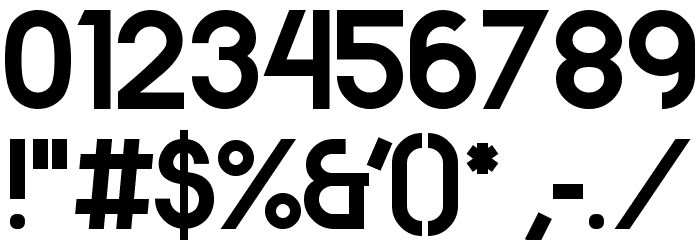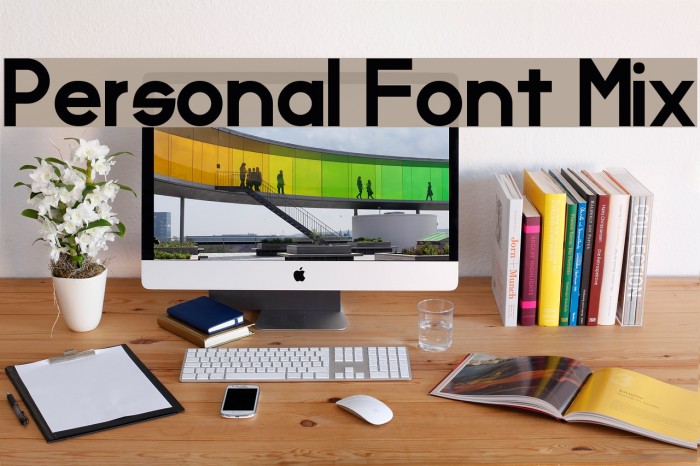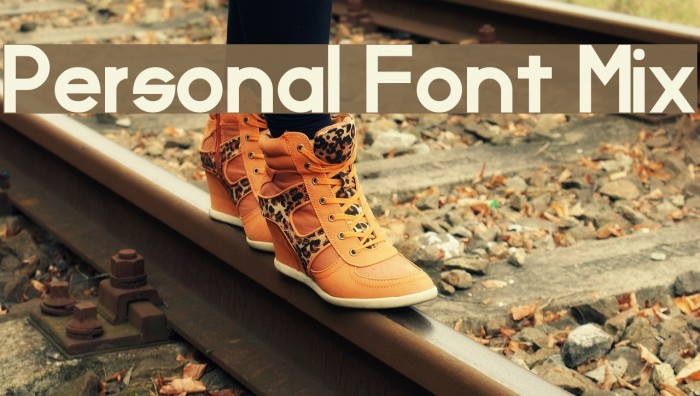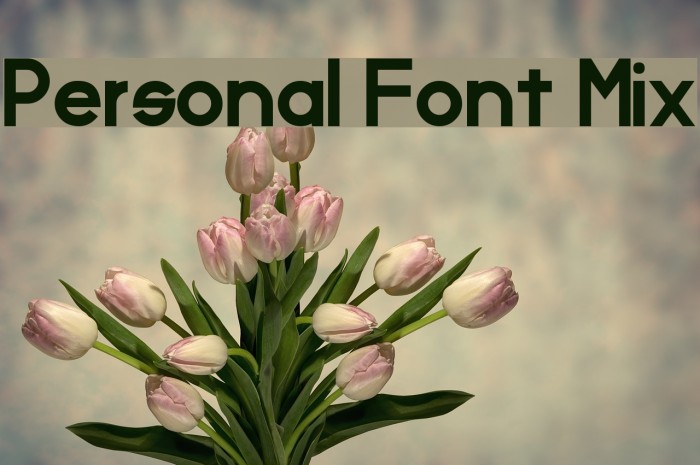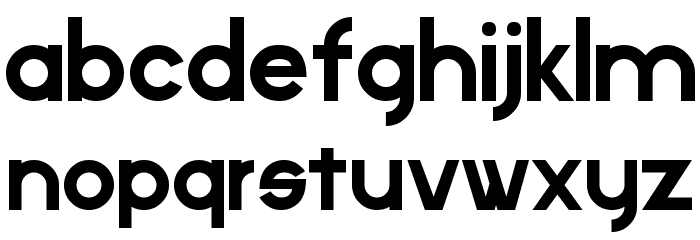
This font features a bold and modern sans-serif style with clean, geometric lines. The uppercase letters are uniform in height, providing a strong and structured appearance. The lowercase letters maintain a consistent roundness, offering a harmonious balance with the uppercase. Numbers are bold and clear, making them easily legible. Special characters are designed with the same geometric precision, ensuring consistency across all glyphs. The overall design is sleek and contemporary, suitable for a variety of digital and print applications.
A bold, modern sans-serif font with geometric precision.
• Proposed Projects: Ideal for branding, advertising, digital media, and editorial design.
• Category: Sans-Serif
• Bold: Yes
• Italic: No
• Weight: Bold
• Width: Normal
• Character Spacing: Normal
• Contrast: Low
• Overall Style: Modern
• Use Case: Headlines, Logos, Digital Media